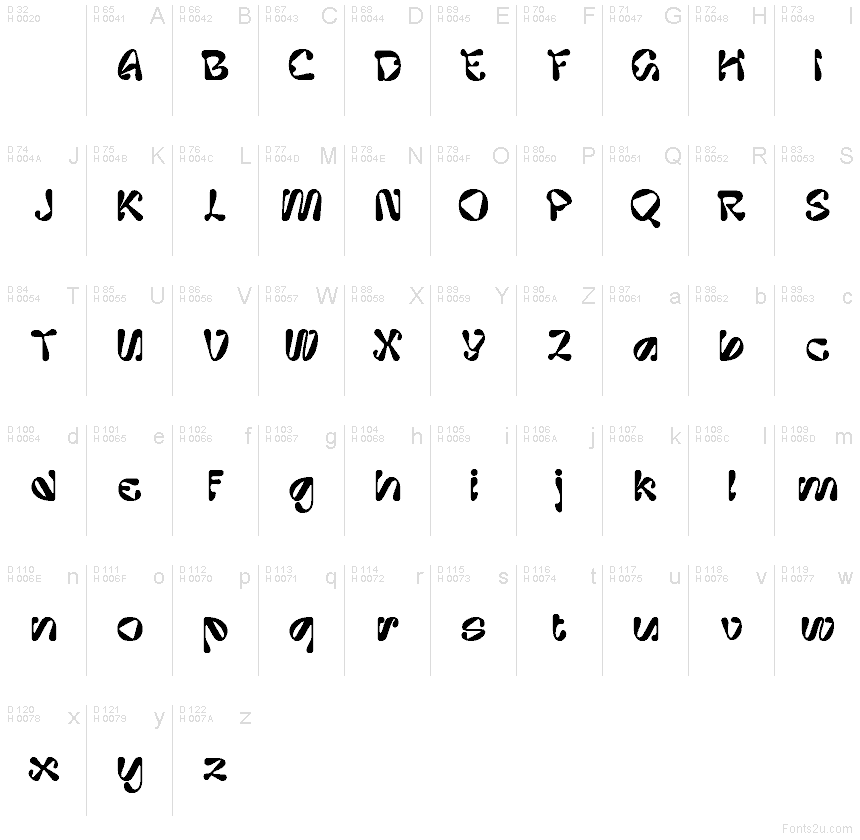
CS Gorila Regular Demo
CS Gorila font by Craft Supply Co. is a free bold organic display font built around big, inky shapes with carved-out wedges that feel hand-cut. Letters swell like soft clay and then scoop inward with crisp, triangular counters, creating a bouncy rhythm that reads loud without shouting. The strokes stay thick and rounded, but those unexpected cutouts add bite and movement, giving headlines a tactile, poster-ink presence.
Using CS Gorila, your titles jump off the page for food packaging, festival posters, streetwear drops, craft coffee labels, eco-friendly branding, and bold social graphics. Its chunky forms hold up at large sizes and short phrases, while the scooped apertures keep it from feeling heavy. Pair this free font with a clean grotesque sans for body copy, and give it a touch of extra tracking when set all caps.